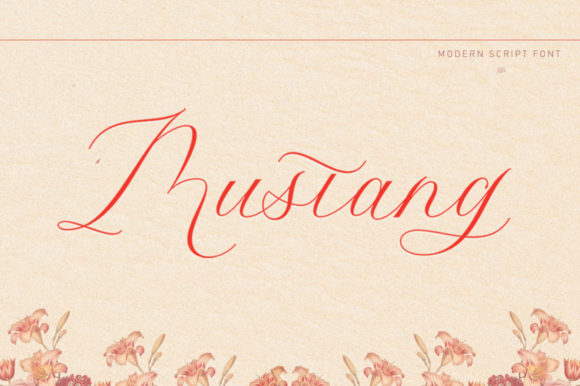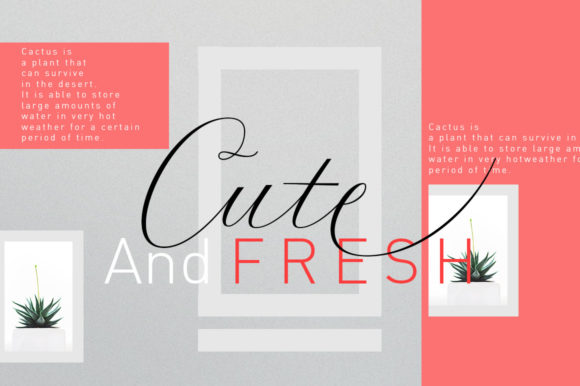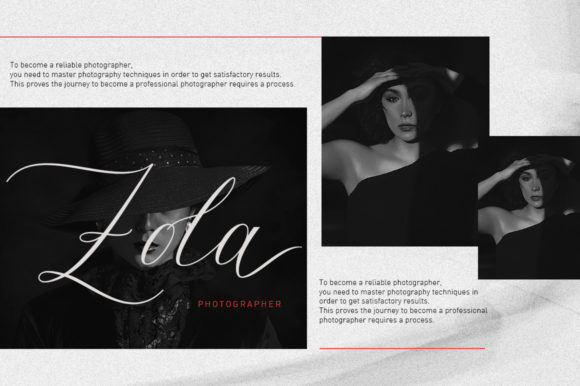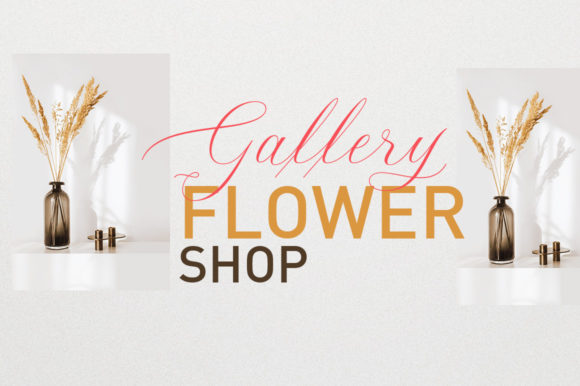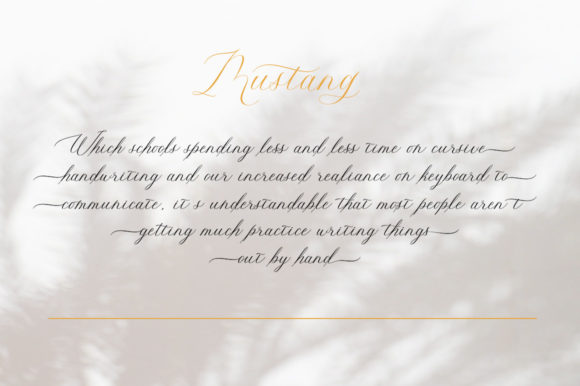
Mustang Script Font
About Mustang Script Font
“Mustang Script” is a charming and contemporary calligraphic script font that adds a touch of elegance to any project. With its dynamic swashes and modern appeal, this font is versatile and suitable for a wide range of applications.
Ideal for titles, signatures, logos, wedding invitations, letterhead, signage, labels, newsletters, posters, and badges, “Mustang Script” brings a sense of sophistication and style to your designs. Its fluid strokes and graceful curves create a sense of movement and flow, making it perfect for conveying a sense of elegance and refinement.
One of the standout features of “Mustang Script” is its extensive glyph and swash set, which is PUA encoded for easy access. This allows you to customize your designs with beautiful flourishes and embellishments, adding a touch of personality and flair to your typography.
Whether you’re designing for a formal event, a corporate brand, or a creative project, “Mustang Script” offers versatility and elegance that will elevate your designs. Its timeless appeal and modern aesthetic make it a valuable addition to any designer’s toolkit.
In summary, “Mustang Script” is more than just a font—it’s a versatile and stylish typeface that adds a touch of sophistication to any design. With its dynamic swashes and modern calligraphic style, it’s sure to make a lasting impression on your audience.